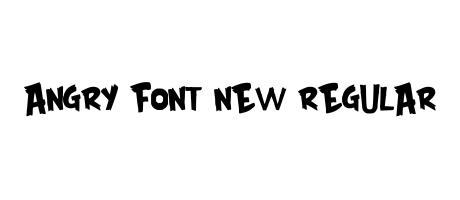
Angry Font New Regular
Angry Font New Regular: A bold, unapologetic typeface, its jagged edges and aggressive strokes scream defiance. Perfect for capturing raw emotion, rebellion, or playful menace. Think comic book villains, punk rock posters, or a video game''s defiant hero. Its irregular style adds a touch of chaotic energy to any design.